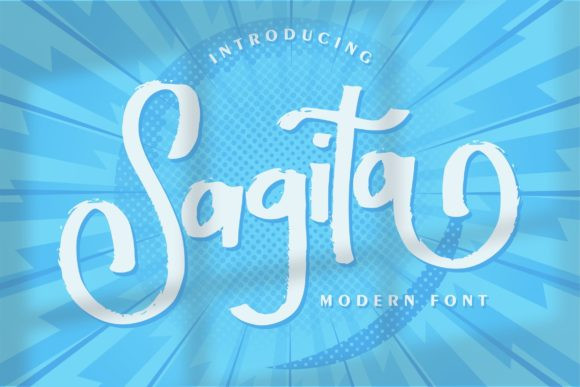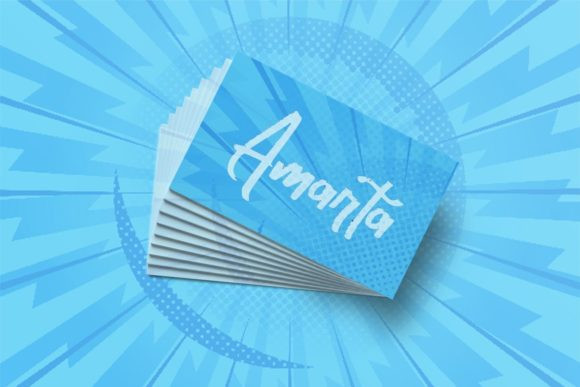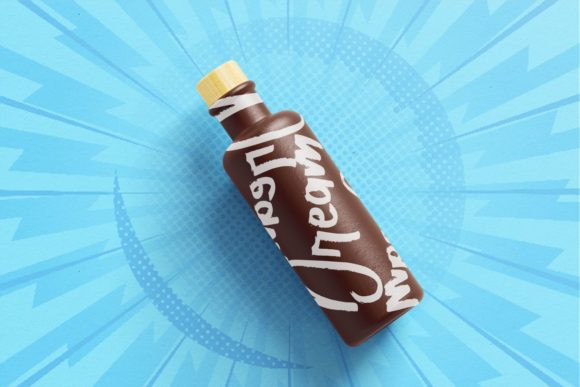
Sagita Font
Sagita is a lovely and timeless handwritten font. It is the best choice for creating eye catching logos, branding and quotes. Every letter has a unique and beautiful touch, which will make your design come alive!